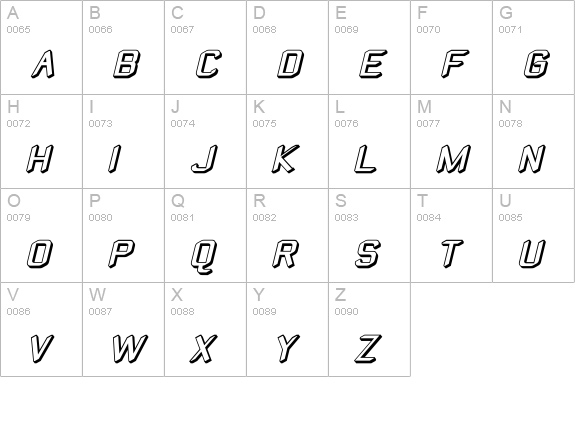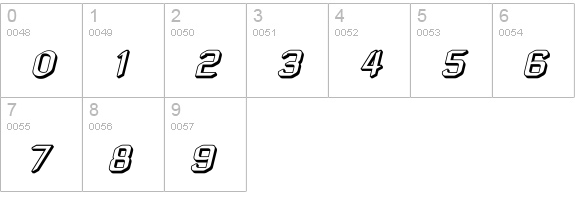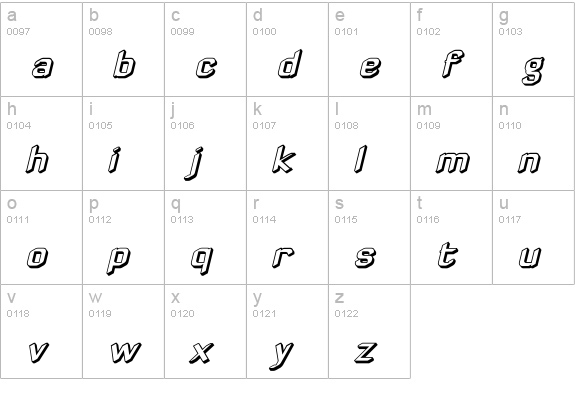
Zyphyte Offset Oblique Font Details
Zyphyte Offset Oblique is a distinctive, italic variant in the Zyphyte typeface family \xE2\x80\x94 well suited to design and typography projects.
Introducing Zyphyte Offset Oblique font - a striking display typeface designed to make a bold statement. With its unique off-kilter angles and modern aesthetic, Zyphyte Offset Oblique exudes a sense of creativity and innovation. This font is perfect for use in branding, headlines, posters, and any design project that calls for a touch of edginess. What sets Zyphyte Offset Oblique apart is its dynamic and energetic appearance, making it a versatile choice for both digital and print applications. Whether you're looking to add a contemporary flair to your designs or make a lasting impression, this font is sure to captivate your audience. The best part? Zyphyte Offset Oblique is absolutely free to download at FontsMarket.com. So go ahead and unleash your creativity with this eye-catching font that is sure to elevate your designs to new heights. Download Zyphyte Offset Oblique today and let your imagination run wild!